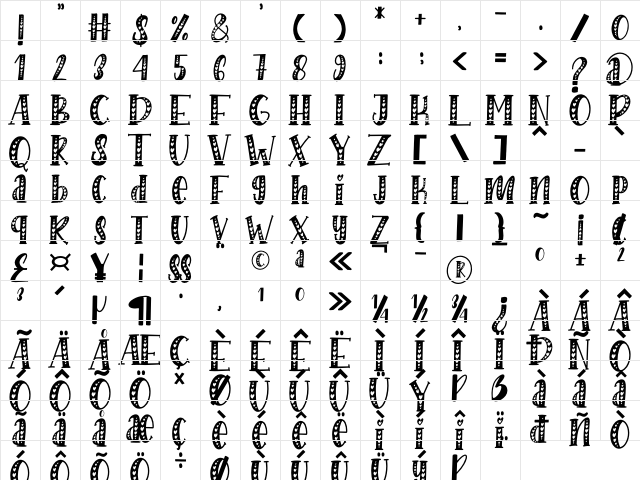
Love Babe2 Regular
| Designer | Muhamad Fikry nuralid |
Design Context for Love Babe2 Typeface
Love Babe2 is a composed and adaptable typeface that performs quietly and consistently across a wide range of design contexts.